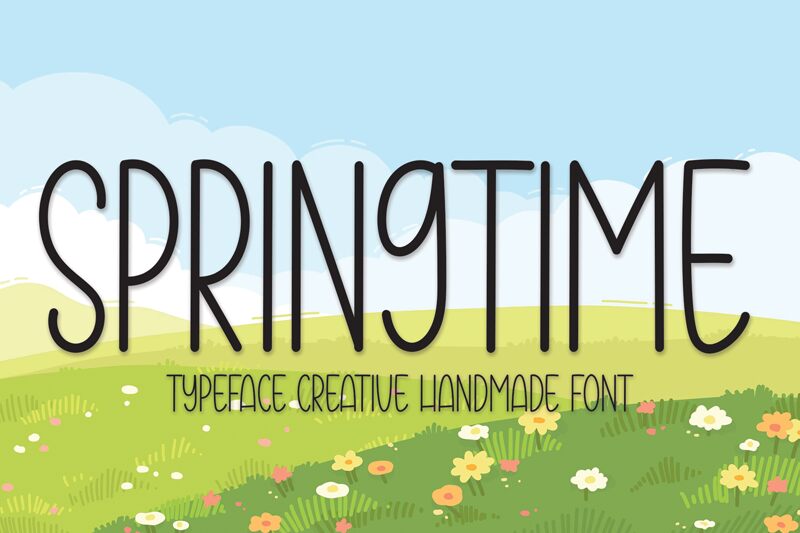
Springtime
Springtime is a captivating handwritten font that exudes a sense of whimsy and effortless charm. Designed by Andi Moz, this light, condensed typeface showcases a delightful blend of organic curves and fluid strokes, evoking the essence of springtime blooms and gentle breezes.
With its enchanting aesthetic, Springtime effortlessly bridges the gap between traditional handwritten aesthetics and modern design sensibilities. Its versatility allows it to seamlessly transition across a wide range of applications, from bespoke stationery and packaging to vibrant branding and editorial layouts.